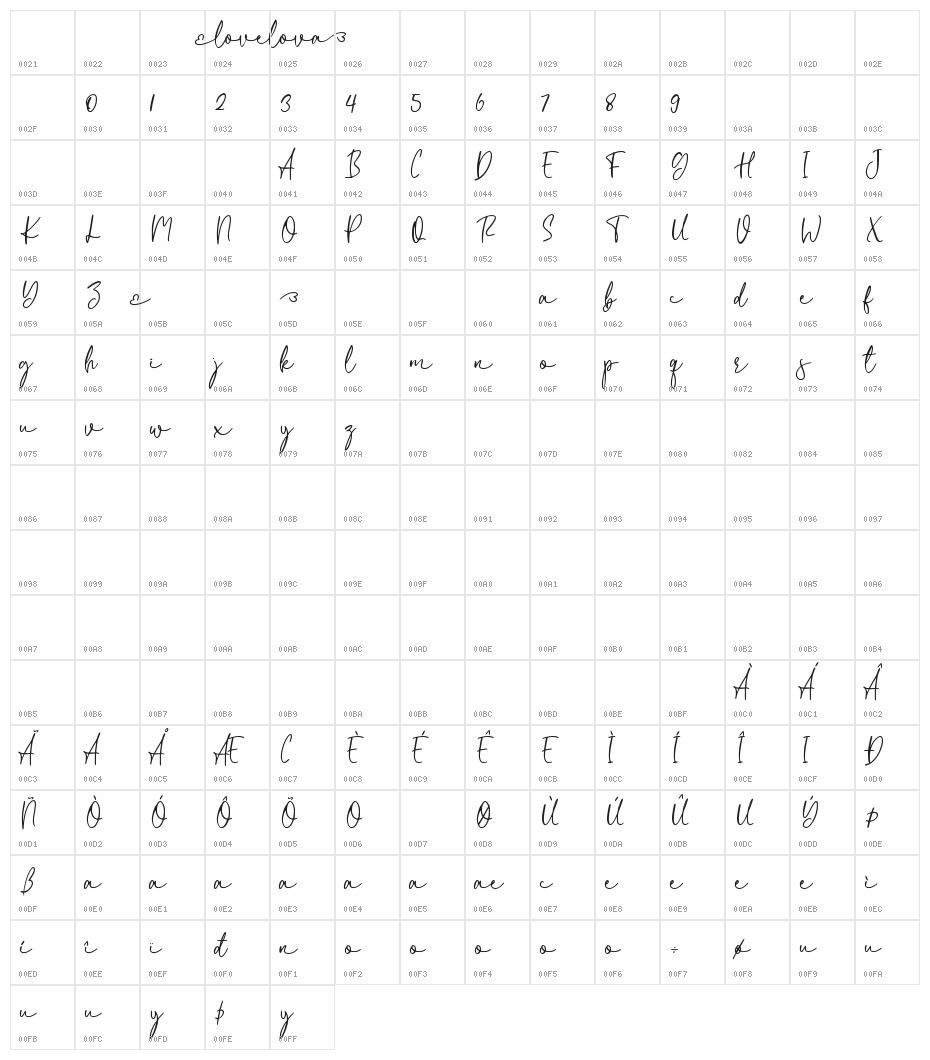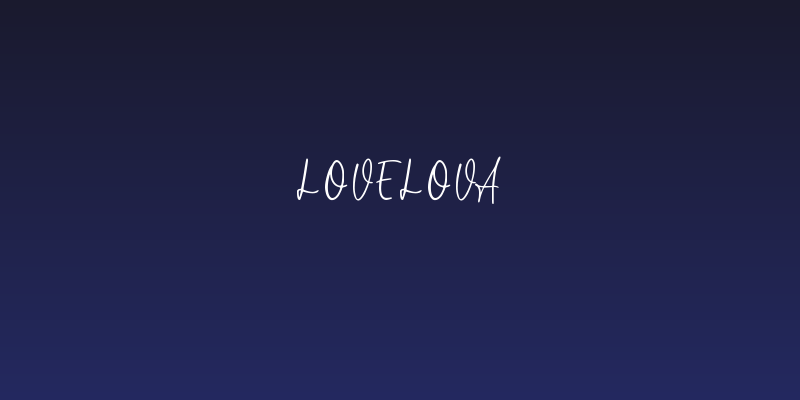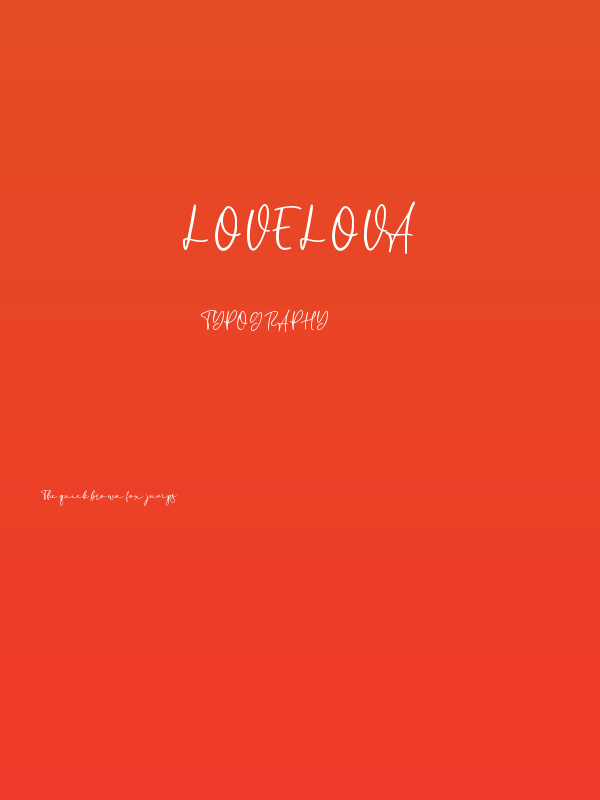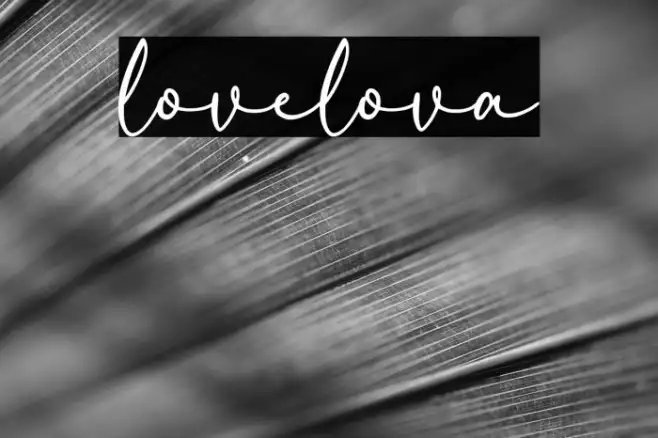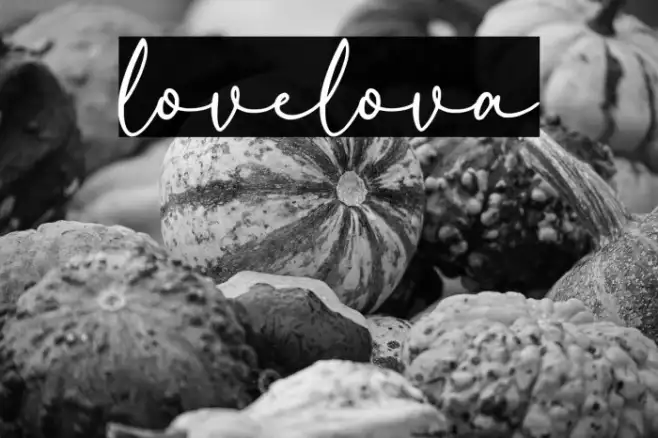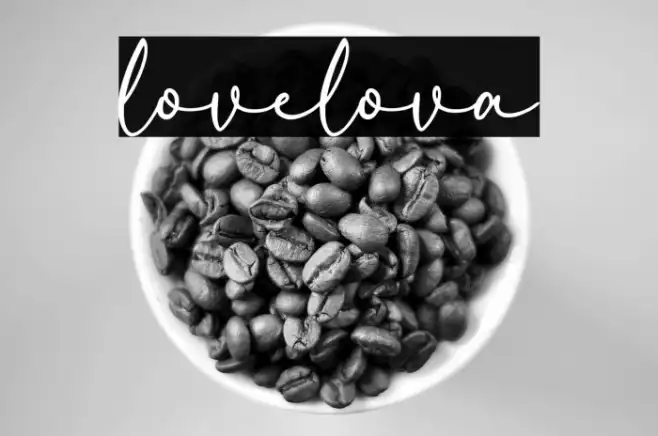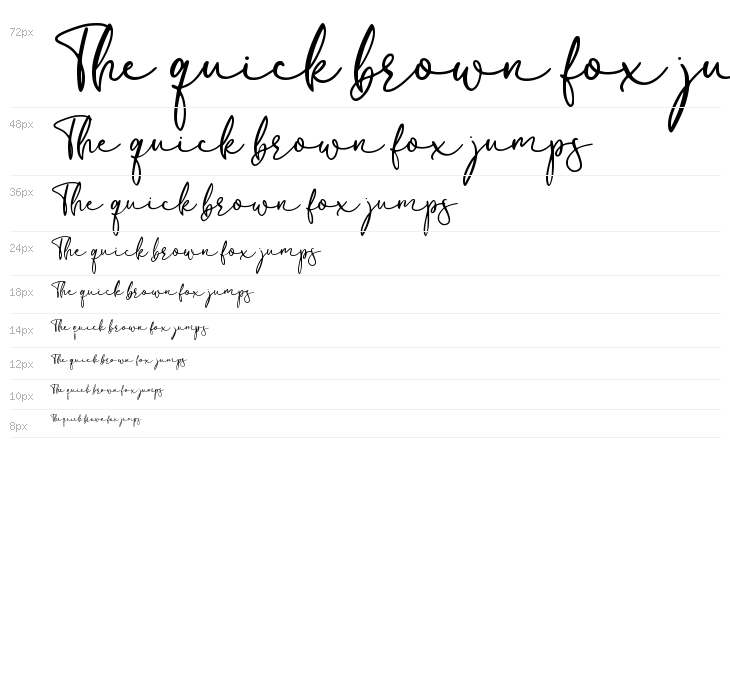
lovelova Font
lovelova Description
This font exudes a charming and elegant handwritten style, characterized by its fluid and cursive strokes. The uppercase letters are tall and slightly narrow, with a graceful flow that connects each character seamlessly. The lowercase letters maintain a consistent rhythm, with loops and curves that add a touch of sophistication. Numbers are clear and legible, matching the overall aesthetic with their rounded forms. Special characters are thoughtfully designed, integrating smoothly with the rest of the typeface. This font captures a sense of personal touch and creativity, making it ideal for projects that require a warm and inviting feel.
| Overall Style | Elegant, Handwritten |
| Proposed Projects | Ideal for wedding invitations, greeting cards, personal branding, and creative projects that require a personal touch. |